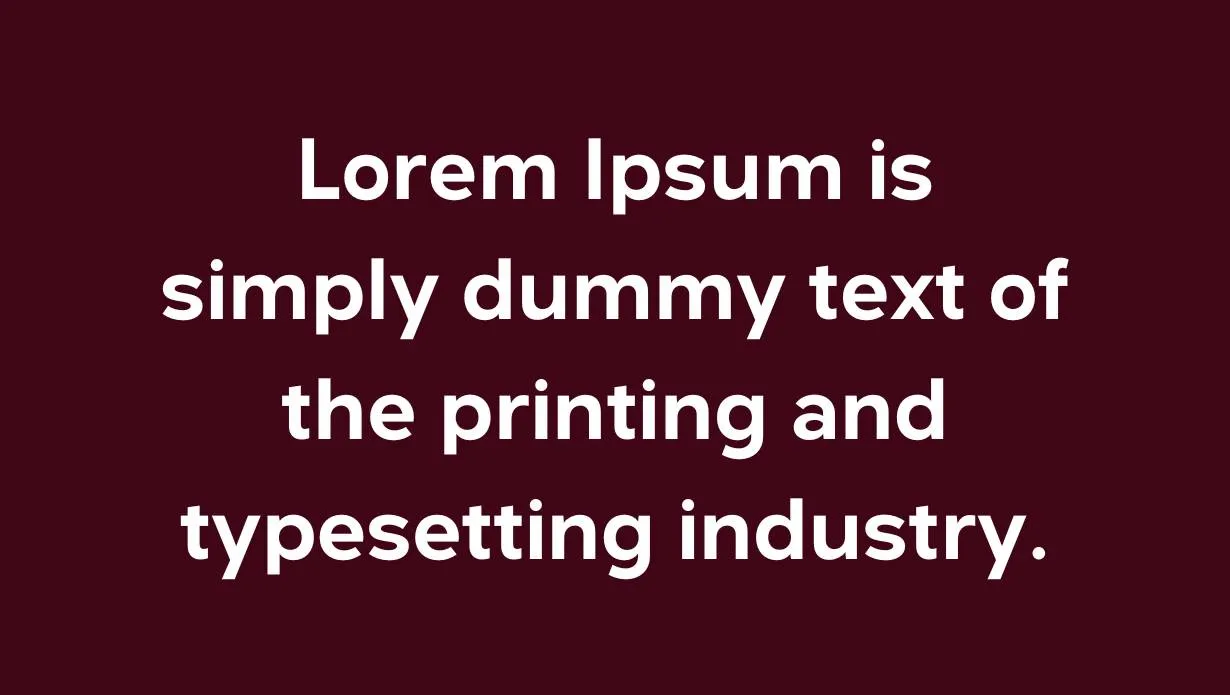
Introducing a new legible, clean, and elegant font style called Delecta Font. Delecta Font is a Sans-Serif typeface with a total of 14 weights designed by Robert Corseanschi, featuring OpenType and TrueType capabilities.
This font is inspired by the other geometric Sans-Serif fonts. It also includes soft and clear uppercase, lowercase, numbers, stylistic alternates, glyphs, punctuations, and extended characters set to support Eastern European and Central languages.
| Name | Delecta Font |
| Designer | Robert Corseanschi |